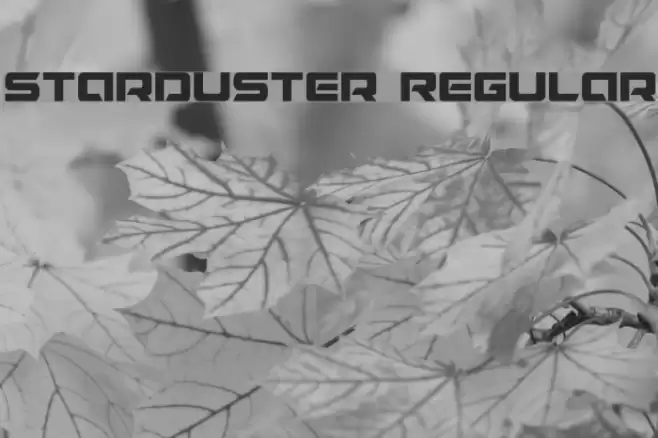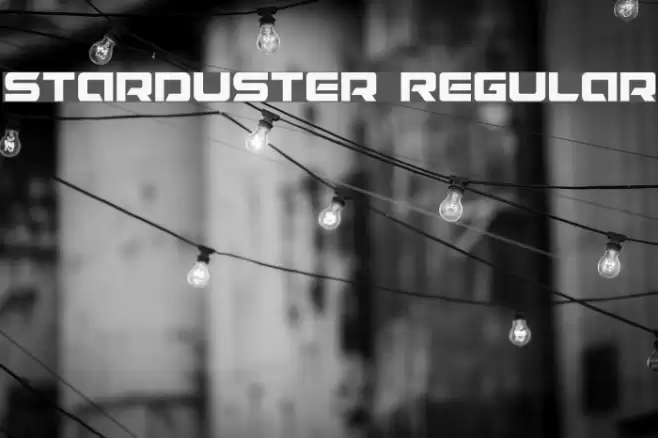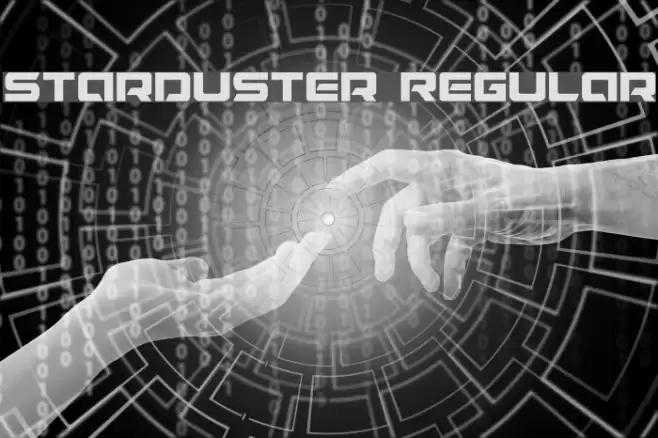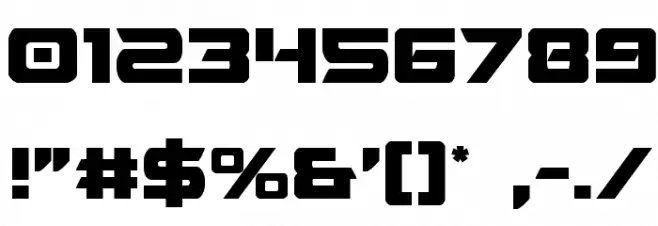
Starduster Regular Font
Starduster Regular Description
This font features a bold, futuristic design with geometric shapes and sharp angles. The characters are wide and blocky, giving a strong and impactful appearance. The uppercase and lowercase letters maintain a consistent style, with a slightly condensed form that enhances readability while preserving the unique aesthetic. The numbers and special characters follow the same design principles, ensuring a cohesive look across all glyphs. This font's modern and edgy style makes it suitable for projects that require a strong visual presence.
A bold, futuristic font with geometric shapes and sharp angles from Uncategorized fonts.
- Proposed Projects: Ideal for sci-fi themed designs, video game titles, posters, and branding that requires a modern, edgy look.